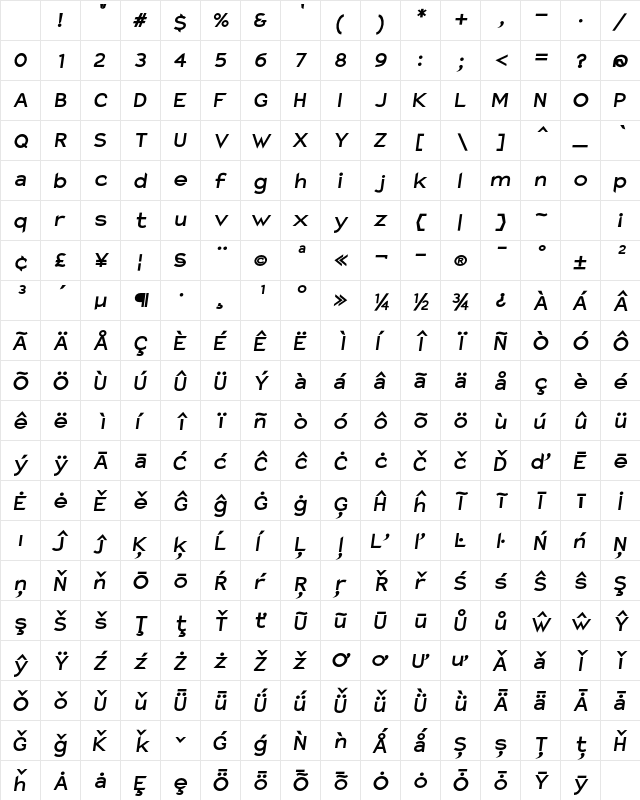
Complete Charger ExBdIt glyph index. Displaying only characters natively supported by Charger ExBdIt font.
Charger is a composed and adaptable typeface that performs quietly and consistently across a wide range of design contexts. Its bold stroke weight gives it real presence on the page.